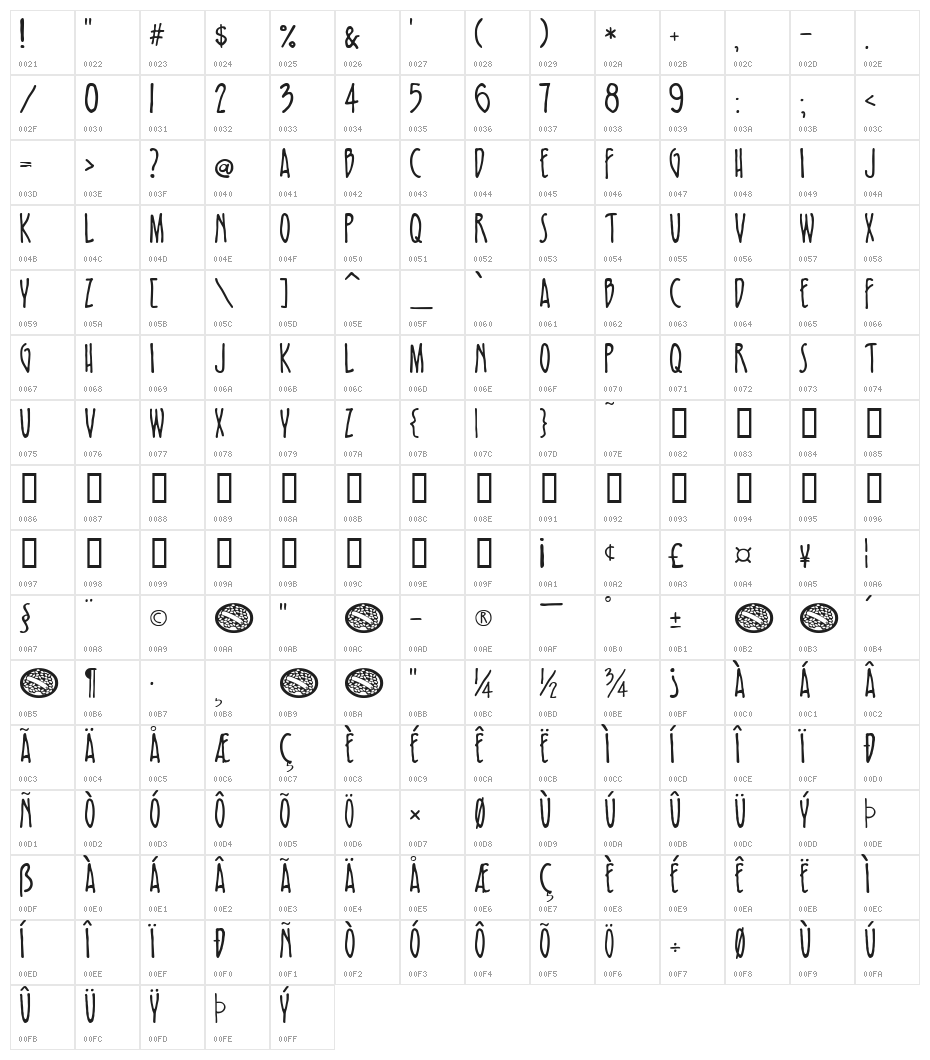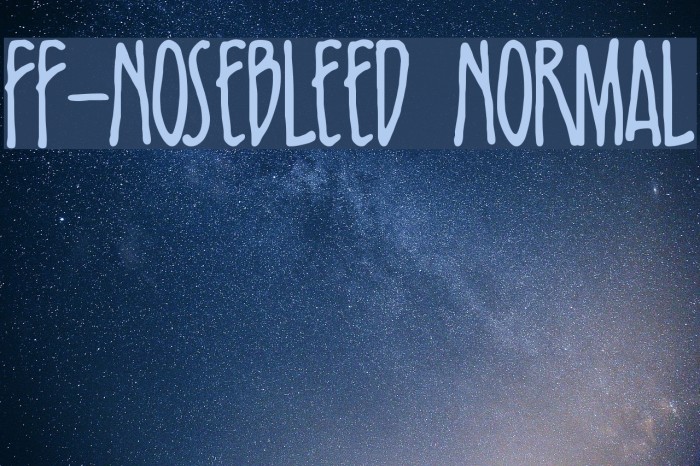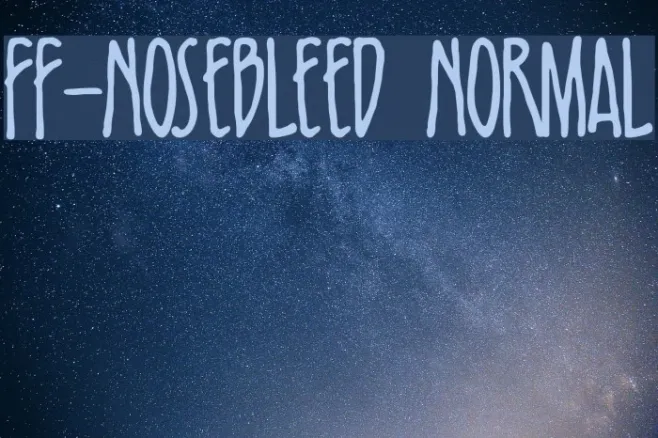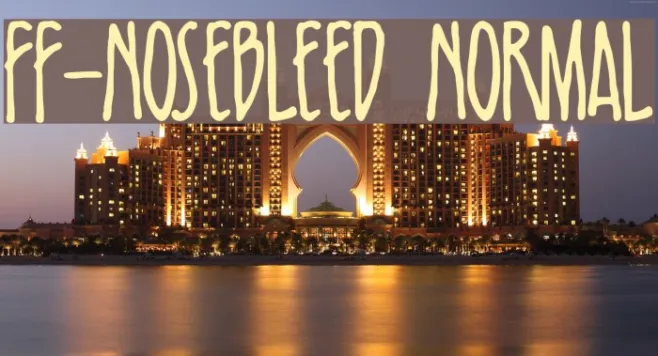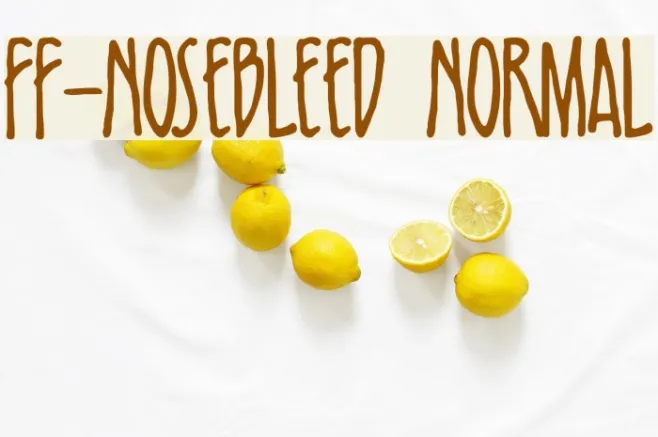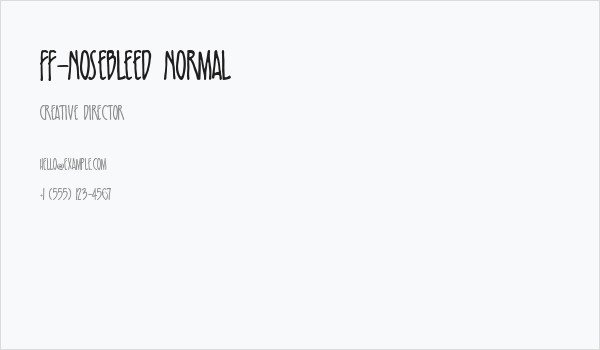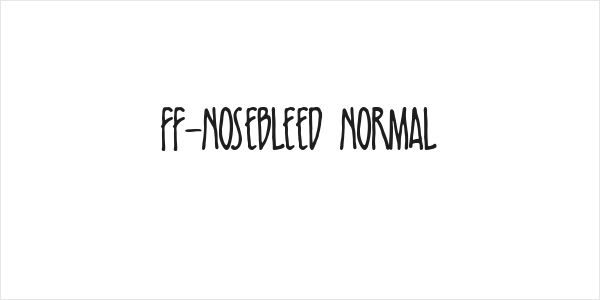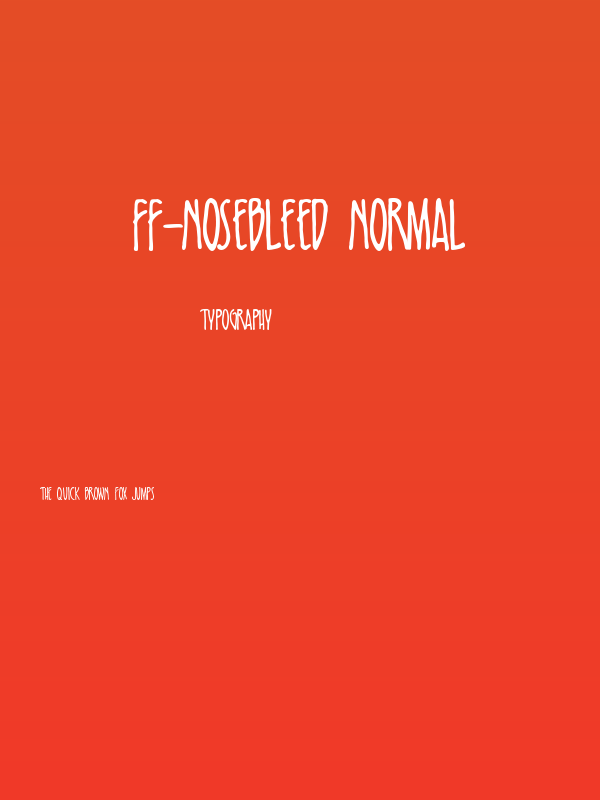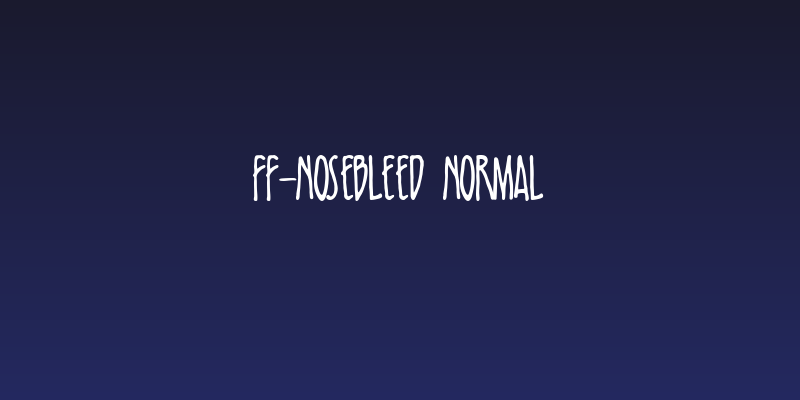
FF-Nosebleed Normal Font
FF-Nosebleed Normal Description
This font features a playful and quirky handwritten style, characterized by its uneven strokes and slightly irregular letterforms. The uppercase and lowercase letters maintain a consistent height, giving it a cohesive look despite its informal appearance. The numbers and special characters follow the same whimsical design, adding to the font's overall charm. The strokes are moderately thick, providing good readability while retaining a casual aesthetic. This font is ideal for projects that require a fun and approachable vibe.
| Use Case | Headlines, Informal text, Branding |
| Proposed Projects | Perfect for children's books, greeting cards, casual branding, and playful social media graphics. |